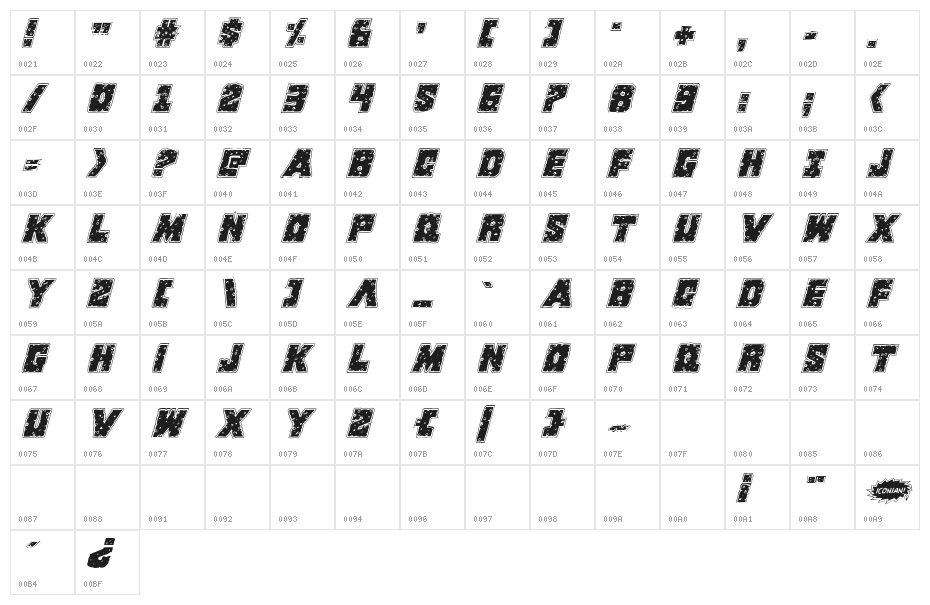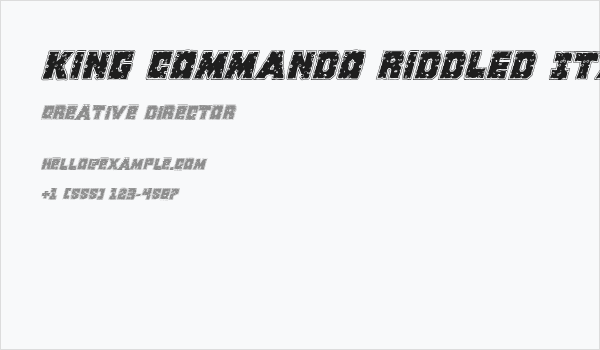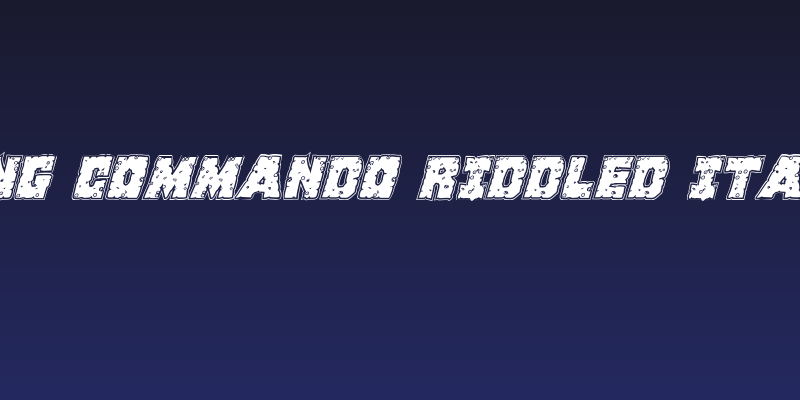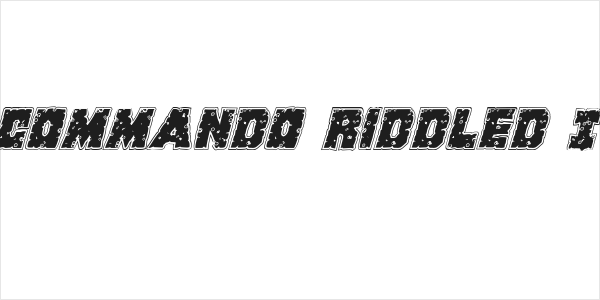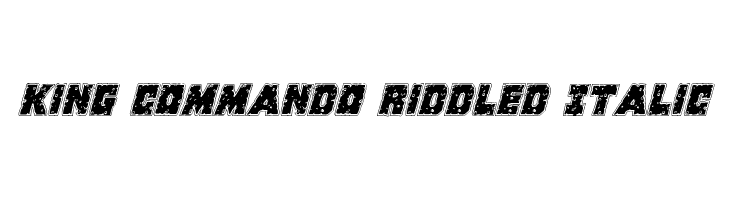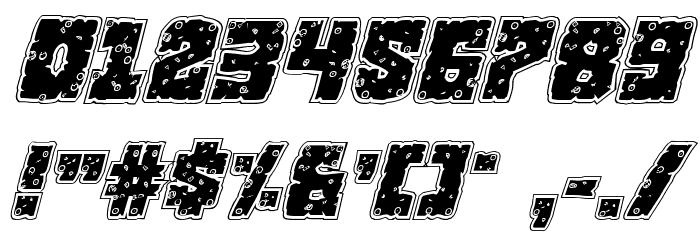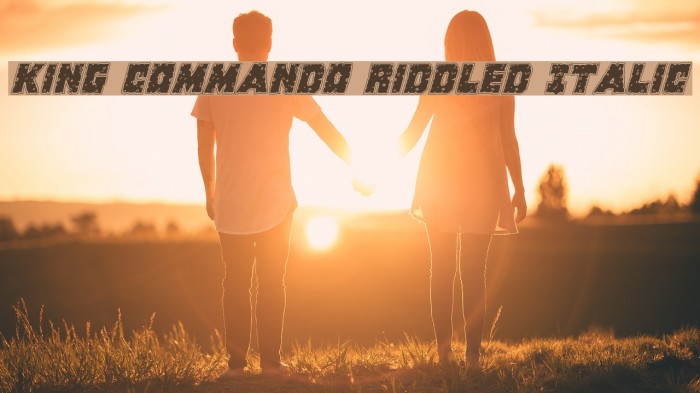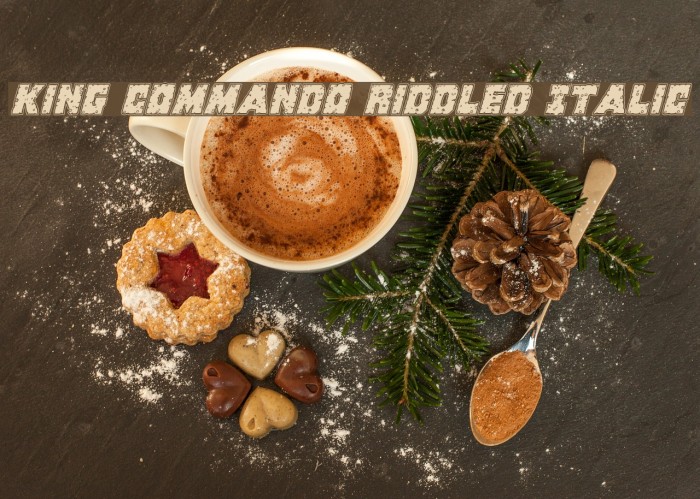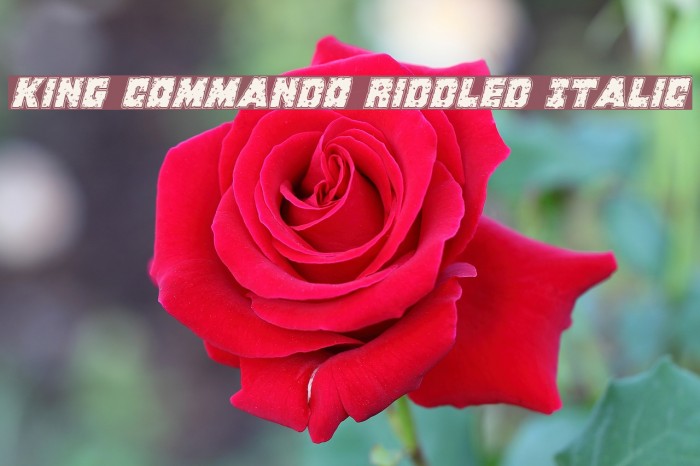
King Commando Riddled Italic Font
King Commando Riddled Italic Description
This font features a bold and rugged design with a distressed, riddled appearance that gives it a unique, edgy character. The letters are italicized, adding a dynamic and forward-leaning aspect to the overall style. The font is highly decorative, with each character appearing as if it has been punctured or eroded, creating a sense of movement and energy. The bold weight and high contrast between the thick strokes and the riddled spaces make it stand out, making it ideal for attention-grabbing headlines or thematic designs. The character spacing is relatively tight, which enhances the compact and impactful nature of the font.
| Proposed Projects | Ideal for use in posters, logos, video game titles, or any project requiring a bold, edgy aesthetic. |